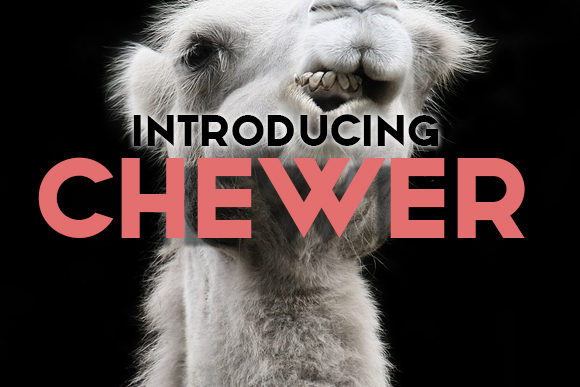
Unleash your creativity with Chewer, the ultimate font for captivating posters! Its bold, clean lines and versatile nature make it perfect for crafting impactful headlines and eye-catching titles that command attention.
Imagine your designs leaping off the page, grabbing the spotlight with every word you type. Chewer empowers you to create posters that speak volumes, conveying your message with undeniable clarity and impact. Whether you're conceiving thought-provoking artwork or promoting upcoming events, Chewer will elevate your designs to new heights.
Dive into the realm of possibilities, where your imagination knows no bounds. With Chewer's adaptability, you can effortlessly craft posters that resonate with your audience, leaving an unforgettable impression. Let your creativity flourish as you weave words into captivating visual masterpieces, turning every poster into a testament to your artistic prowess.